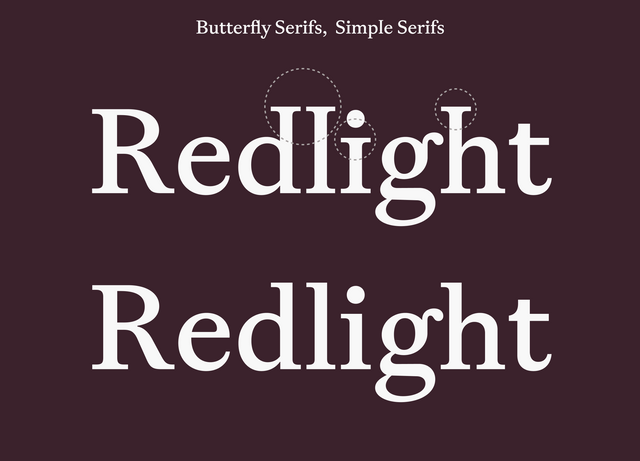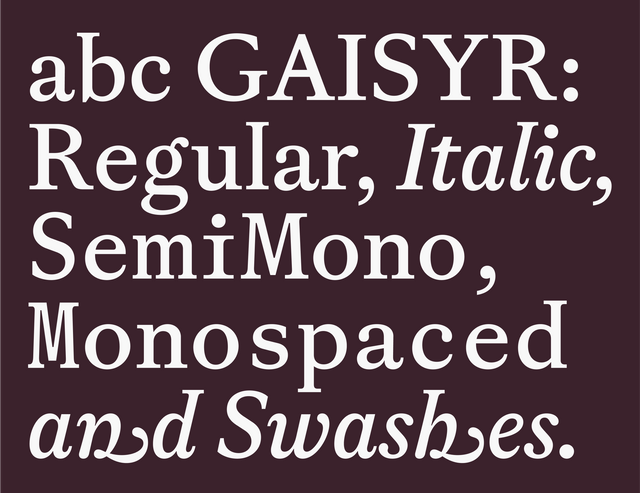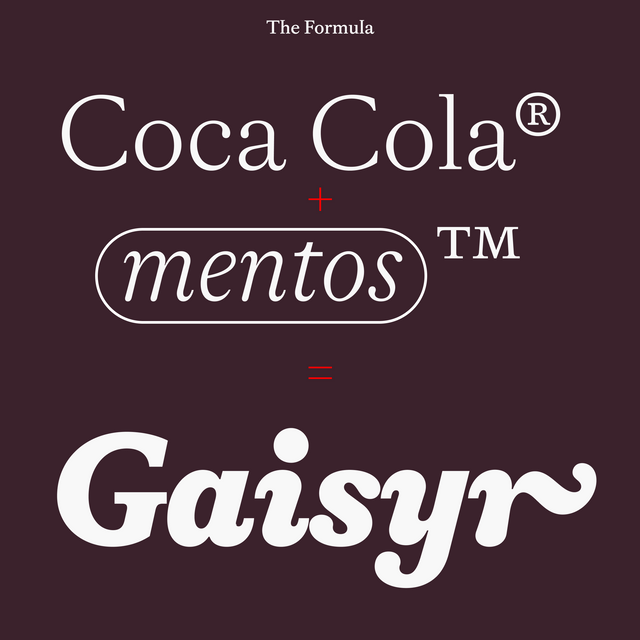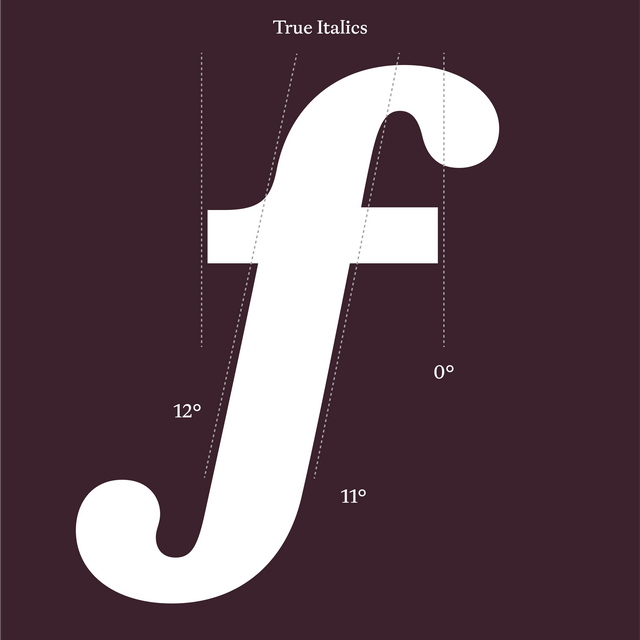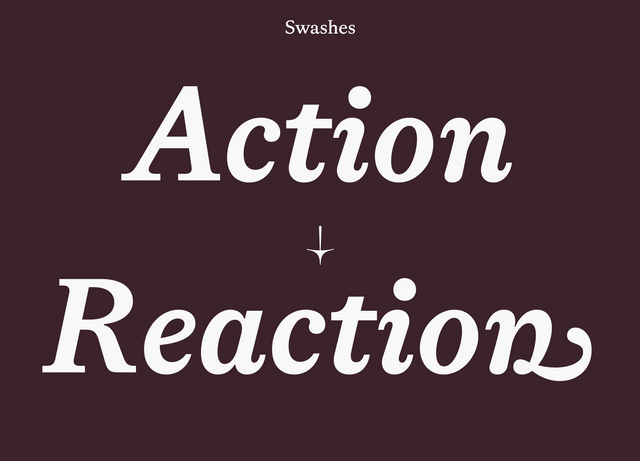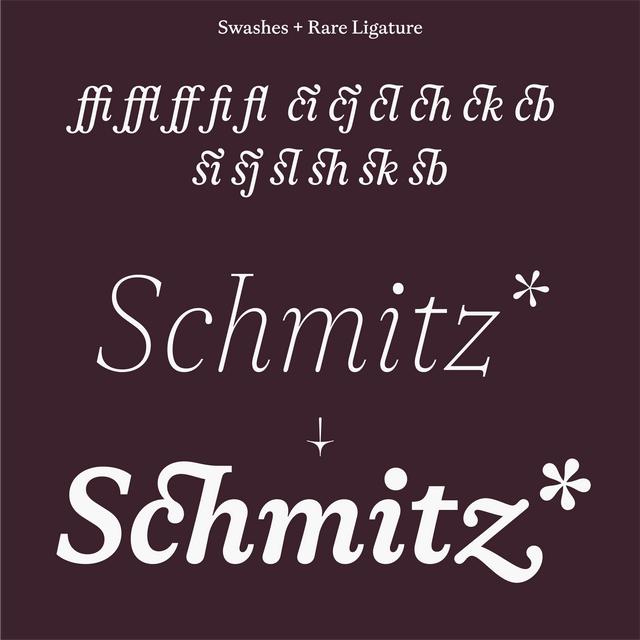
Diet Coke + Mentos = Gaisyr ⛲️ —
We’re releasing Gaisyr today, our beautiful new typeface with Dinamo house-style Butterfly Serifs. It takes its point de départ from sketches by the early 18th Century royal typographer for King Louis XIV, Jacques Jaugeon, and reimagines them through the lens of a TikTok content neighborhood.
We’ve long thought of adding a new serif to our library as a less represented genre in our catalog. Gaisyr, with its wide proportions and pronounced detailing, felt like the natural fit. It’s suitable for longer texts but loud enough that it’s not just another Times.
Close your eyes and imagine the King sitting in his garden, maybe a bit sunburned, surrounded by butterflies and low-hanging citrus fruit, sipping on a (glass bottle) of Coke®. You’ve successfully entered the world of Gaisyr.
Origins
Gaisyr resides in the neighbourhood of Romain Du Roi, the typeface of King Louis XIV — or the King’s own 'lil custom font, one might say. The heavily rational design was drawn by four scientists (including Jaugeon) in 1692 and based on a grid of 2,304 tiny squares per letter.
King Louis XIV, the Sun King himself, ever the baby
My teacher once told me that Romain Du Roi was the first “transitional” typeface. A bridge from the Old Style designs modeled on handwritten letters to typefaces created specifically for the printing press.
From “Caracteres De L'imprimerie Nationale”...
...A book of historical French typefaces used by France's national printing office
While the artists behind Romain Du Roi created a strictly geometric face, the punchcutters who produced it were still in the mindset of freestyling. They translated the sketches onto metal by eye and with rudimentary measuring, becoming the ones truly deserving of a crown.
It’s this tension between strict geometry and a loopy, hand-held interpretation (think of the King after an evening inspecting his distillery) that informed the lines of our own Gaisyr.
The Typeface
Gaisyr has a total of 42 styles. It’s available in Regular, Mono, and Semi-Mono cuts all with corresponding Italics. Pumps up from Thin to Black.
Butterfly Serifs
Gaisyr is ready-to-not-disturb-you while reading but also has a bunch of less toned down moments up its sleeve. Its Butterfly Serifs are one of its highlights, seen in typically overlooked characters like the lowercase i and l.
The serifs sprout out like a fountain, or, ehem, a geyser (but “gaisyr” is spelled prettier). We’ve started implementing the mirrored serifs in all Dinamo serifs. Fabian dubbed the style Butterfly.
Alternatives for Gaisyr without the butterfly wings are available in stylistic sets. Using the Dinamo Font Customizer, you can also select wingless alts as your default.
Tired (but beautiful): Butterflies
Wired: Butterfly Serifs
Swashes
Royal swashes are available as alternates for when you need to make an entrance. Find them in the stylistic sets for e, h, k, m, n, r, and z.
Yoooo, coming in here like that
n and m are neighbors in the Latin alphabet and both deserve a swash ☝🏻
Swash so big it doesn’t even fit in this image!!
The whole spectacle seen from inside the bottle, from the perspective of one happy mentos ⚪️
Common and Rare Ligatures
Herr Schmitz, angenehm 🤝 💼 (rare ligatures combined with swashes)
True Italics, Small Caps, and Oldstyle Figures
Italic angle festival. Italics skew rightwards while serifs stay upright 👆🏻
Team
Together with our France-stemming intern Louis Brousseaud, Fabian spent some time stalking the archives of the Musee de L'Imprimerie Lyon and the Imprimerie National in Paris, sourcing documents and beginning to draw Gaisyr’s first digital shape.